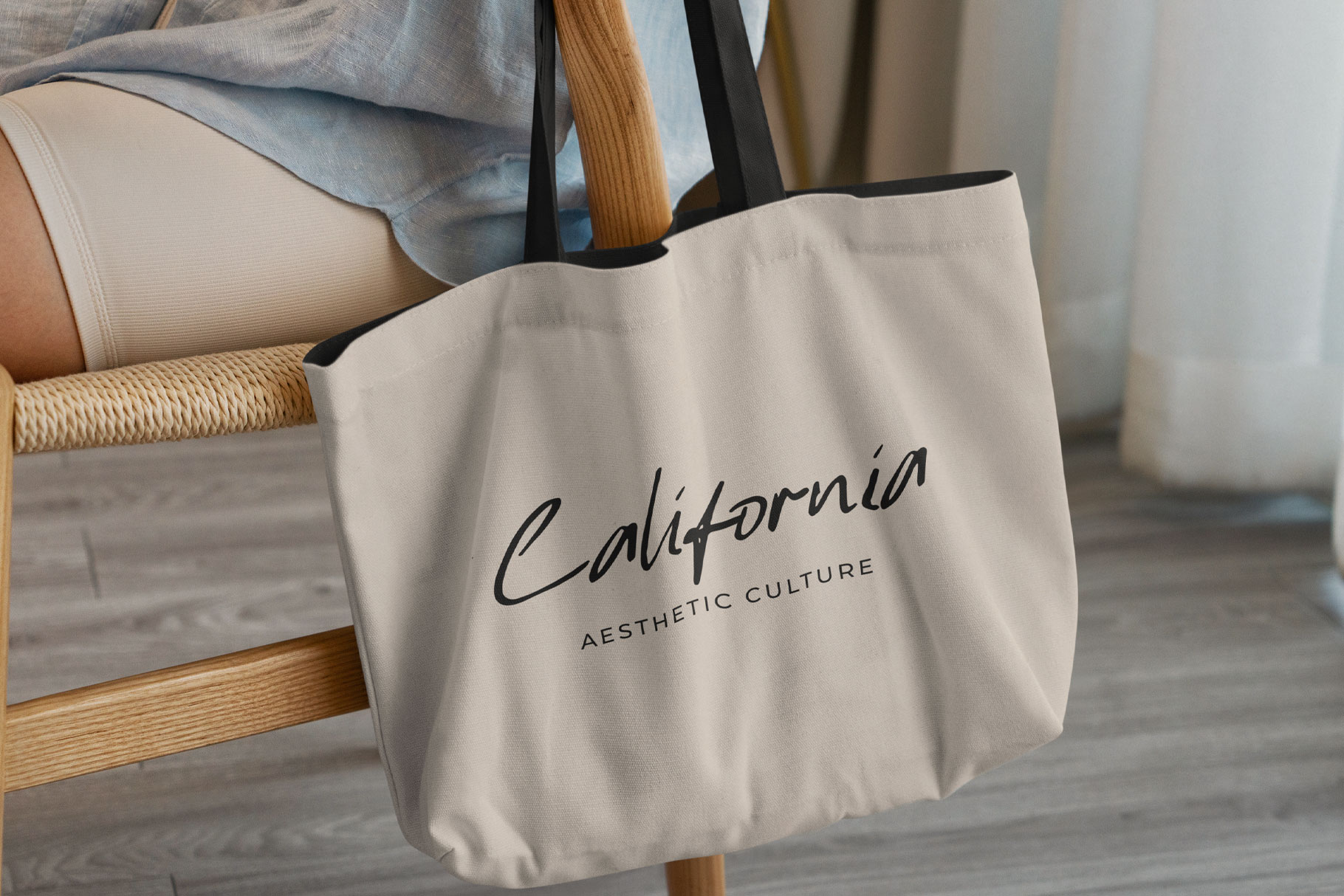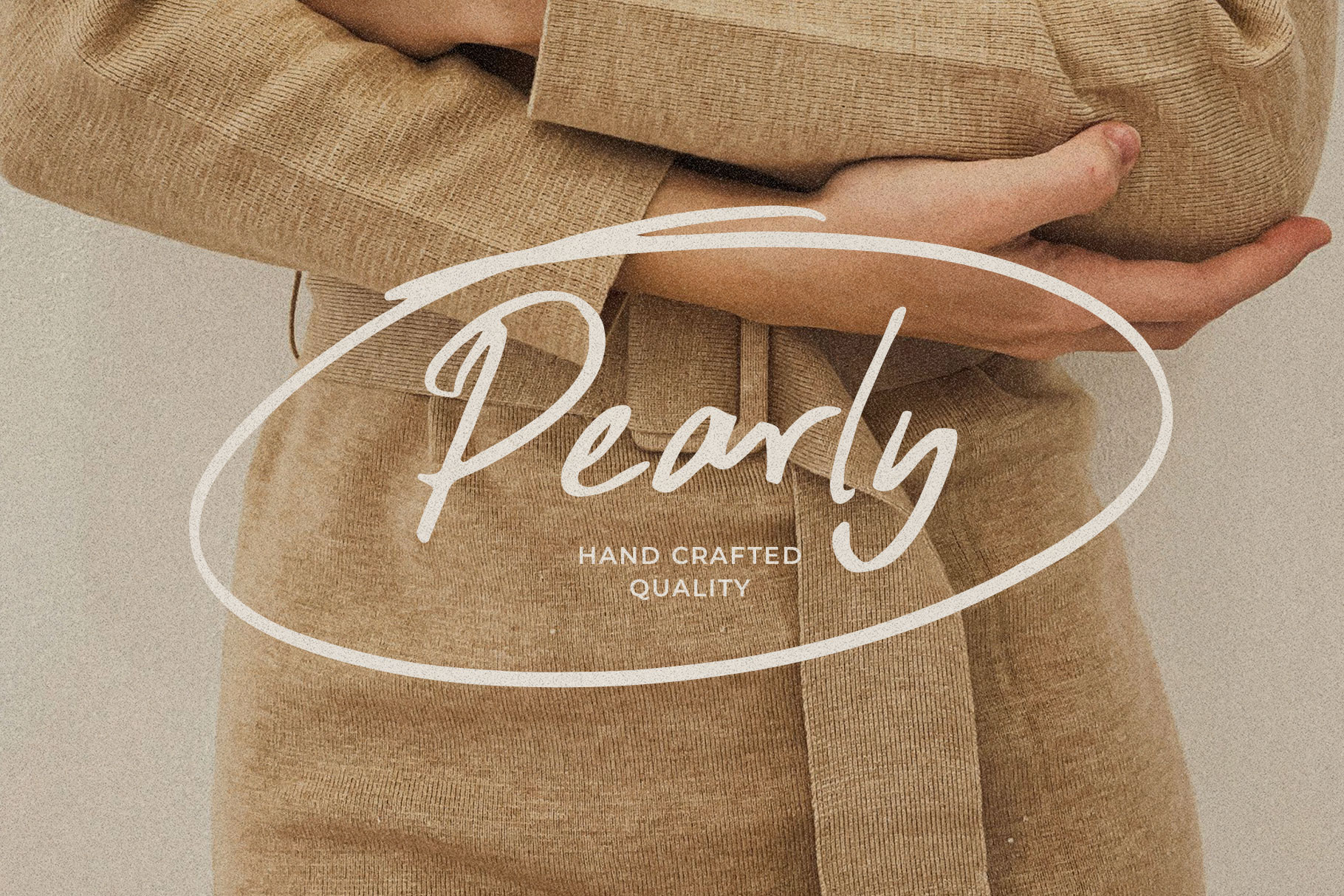
Monling Handwritten Notes Font
Monling is handwritten notes font captures the warmth, charm, and authenticity of natural handwriting, bringing a personal touch to every word. Monling feels alive crafted with subtle strokes, imperfect lines, and gentle curves that mirror the beauty of writing by hand. Monling come with reguler and swashes, you can mix and max to make a awesome design project.
Monling is a perfectly choice for any creative endeavor, creating, modern, lifestyle design such as logotype, title, cover, branding, invitations, wedding designs, display and magazine, social media posts, advertisements, printed quotes, product packaging, corporate brand, product designs, labels, photography, watermarks, special events and any other project with natural touch.